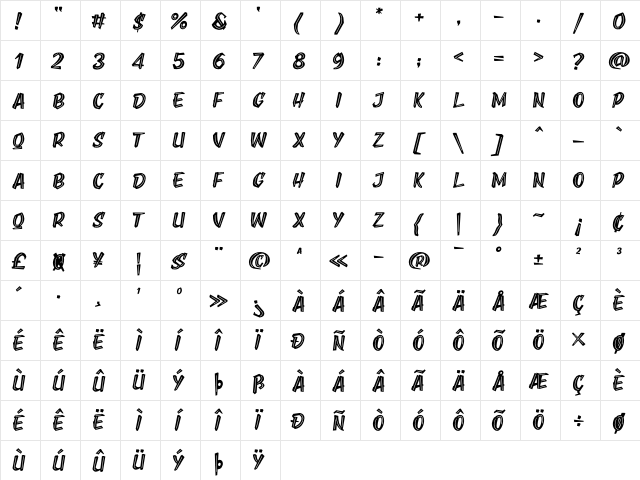
Leader Kids Regular
| Designer | Awan Senja Team |
Design Context for Leader Kids Typeface
Leader Kids has an approachable, lighthearted character — its loose, expressive forms are well-suited to children's content, casual branding, and fun-first design.
Well-suited to food and beverage brands with personality, educational materials, and fun-forward identities.
Font Pairing: Pairs well with a rounded or humanist sans for body copy, maintaining the friendly tone without relying on Leader Kids to carry extended reading.
Pro Tip: Use Leader Kids at larger display sizes where its expressive character can land. Pair with a clean, simple sans for body copy to maintain readability.